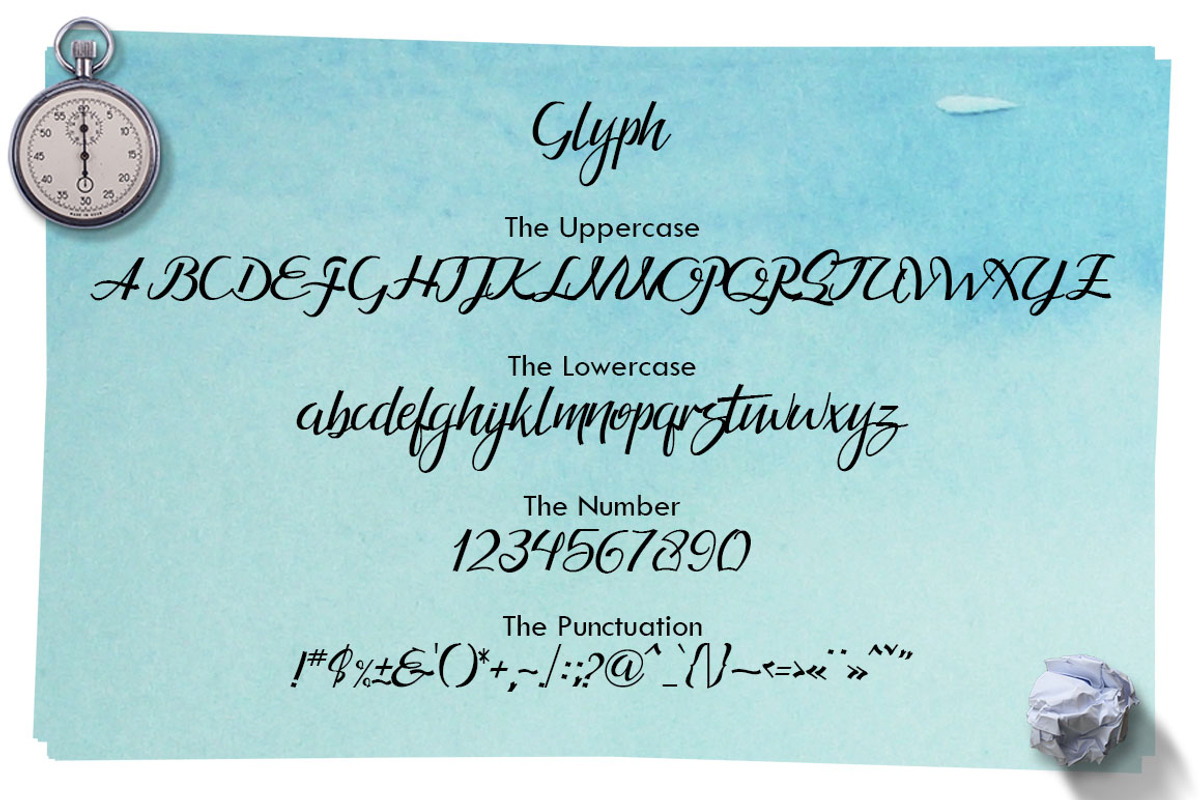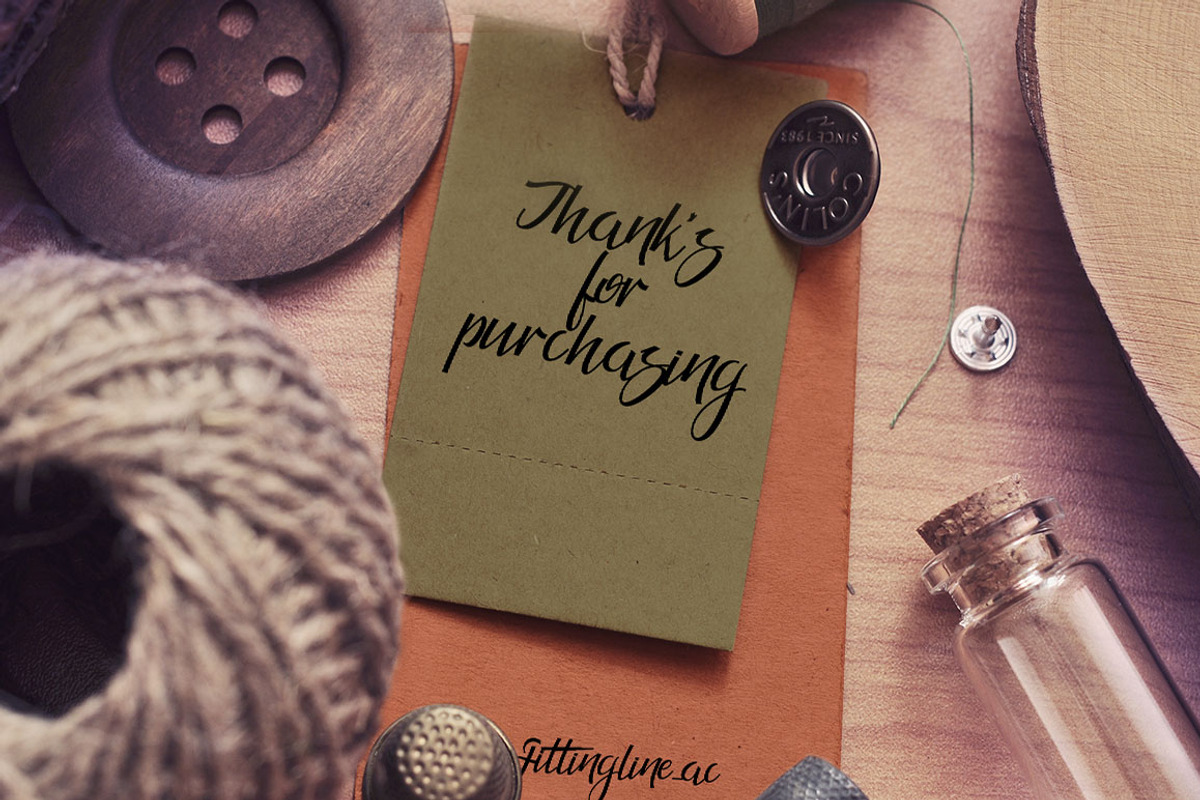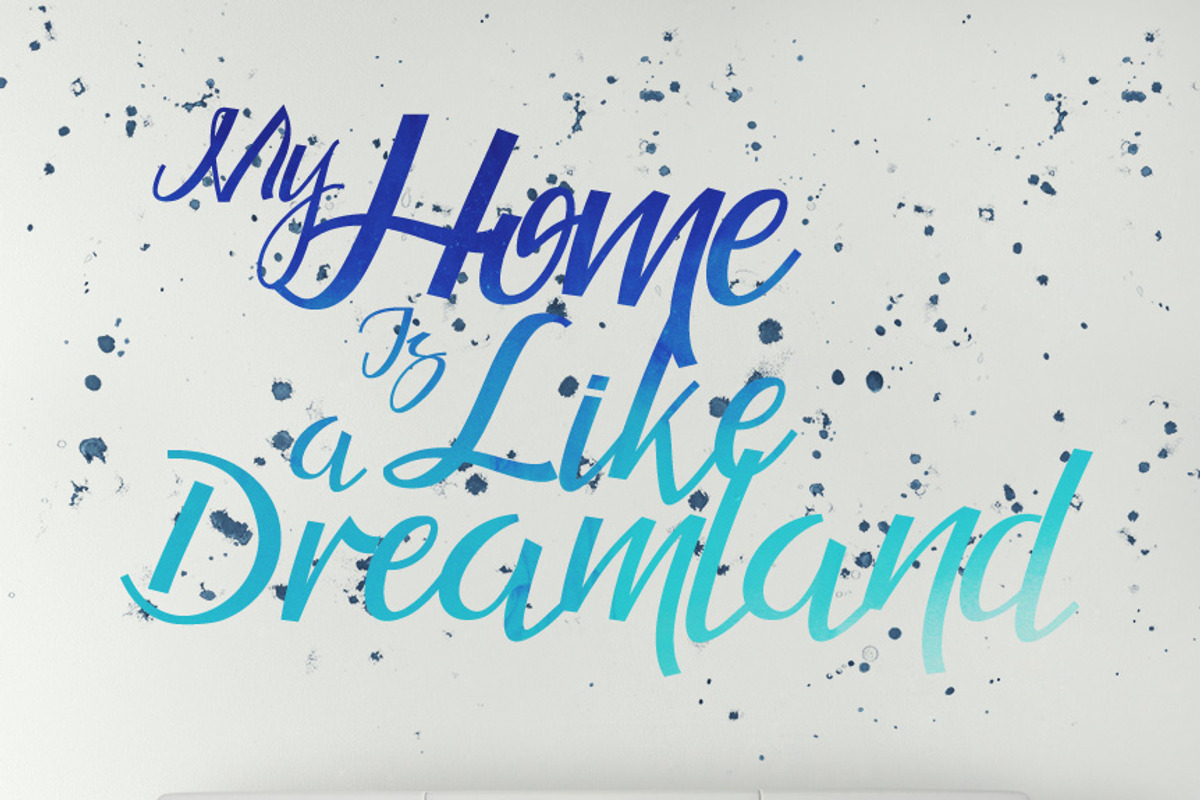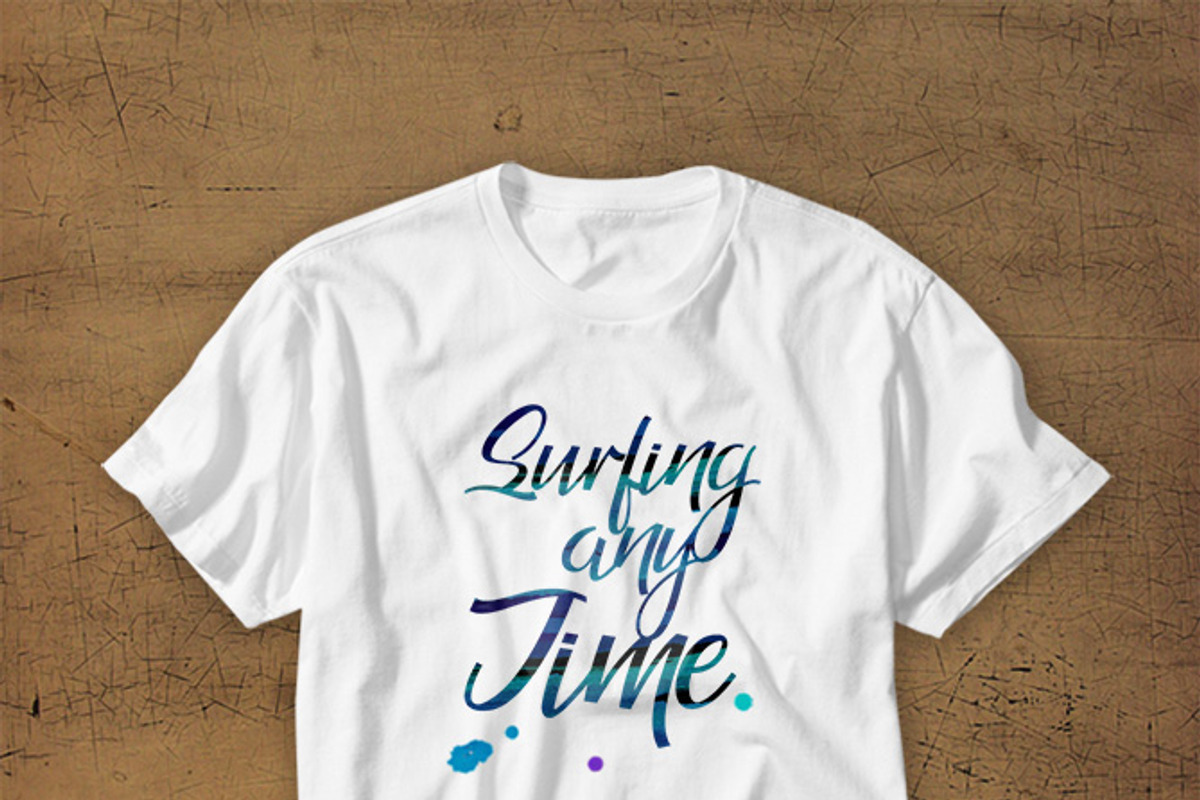
Guarddilla Typeface
Guarddilla Typeface by Stipline Studios is a font selected for branding, posters, packaging, typography.
- Standard Character. ligature.
Why Guarddilla Typeface is worth a look
Guarddilla Typeface by Stipline Studios fits naturally into Branding, posters, packaging, typography.